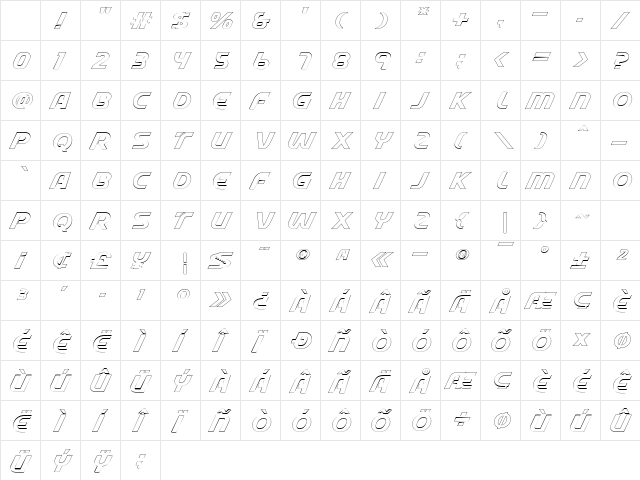
Stable is built around its visual character rather than neutral utility - its distinctive forms are designed to make an impression at display sizes.
Font Pairing: Pair with a clean neutral sans-serif for body copy to let Stable's character lead without overwhelming the composition.
Pro Tip: Use Stable exclusively at display sizes - it was designed to be seen, not read at length. Let a neutral companion handle body copy.